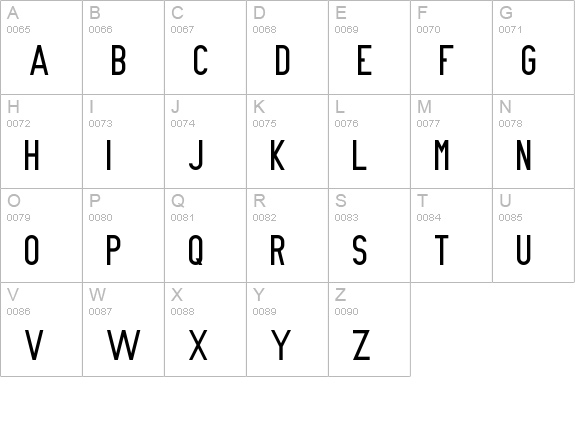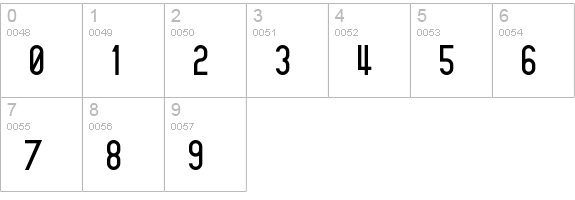
Nue Gothic Regular is the standard, neutral variant in the Nue typeface family \xE2\x80\x94 well suited to general body text, paragraphs, and standard typographic work.
Nue Gothic Regular font is a versatile and modern typeface that encompasses the essence of both classic and contemporary design. With its sleek and clean lines, this font exudes a sense of sophistication and elegance, making it the perfect choice for a wide range of projects. The Nue Gothic Regular font offers a wide range of weights and styles, allowing for endless possibilities in typography. Whether you are designing a logo, creating a website, or crafting a magazine layout, this font will effortlessly elevate your design to new heights. One of the standout features of Nue Gothic Regular font is its versatility. It can be used for both large headings and small body text, ensuring consistency and readability across various applications. The carefully crafted letterforms and balanced proportions make this font a pleasure to read, capturing the attention of the audience and conveying your message with clarity. What makes Nue Gothic Regular font even more remarkable is the fact that it is available for free. Yes, you read that right! This incredible font can be freely downloaded at FontsMarket.com, allowing designers and creatives to access a high-quality typeface without breaking the bank. So, whether you are a professional designer looking for a reliable and stylish font or an amateur enthusiast exploring the world of typography, Nue Gothic Regular font is a must-have in your collection. Its timeless appeal, versatility, and accessibility make it a true gem in the realm of typography. Don't miss out on the opportunity to download this remarkable font for free at FontsMarket.com and take your designs to the next level.